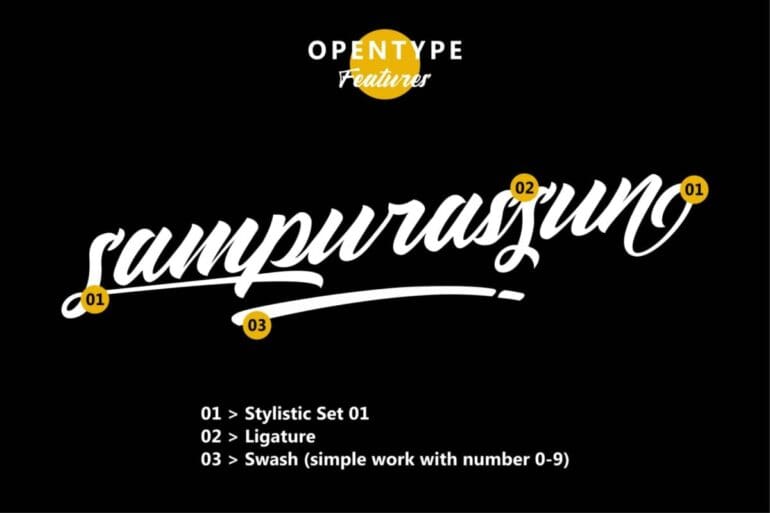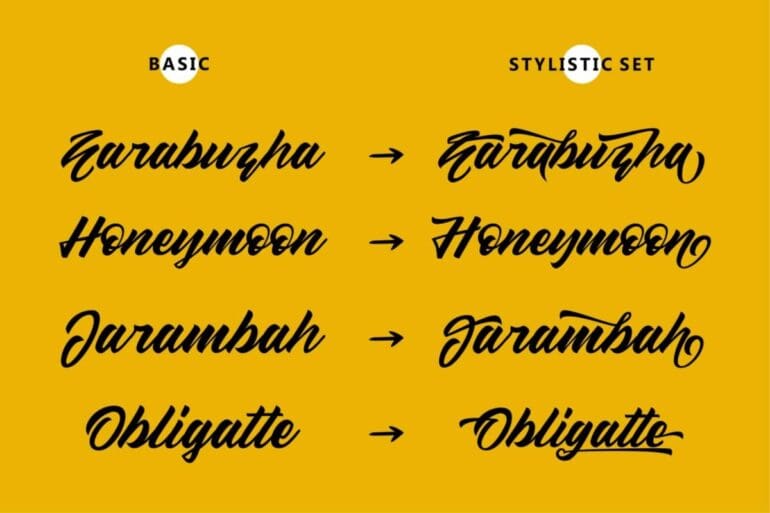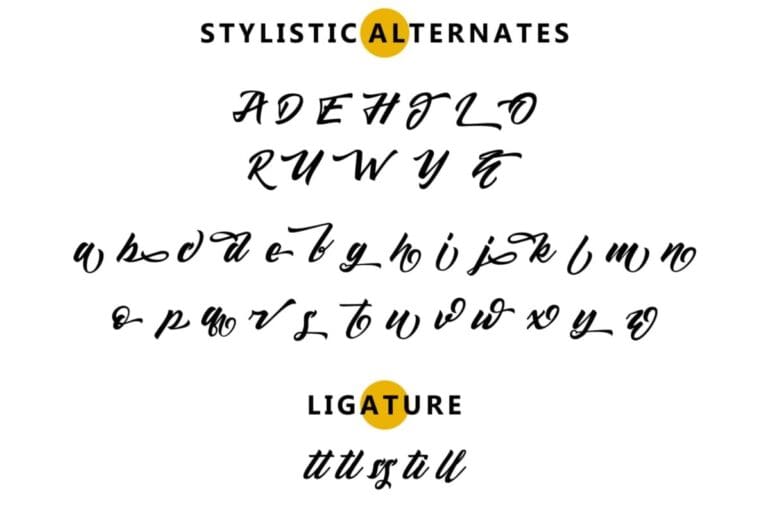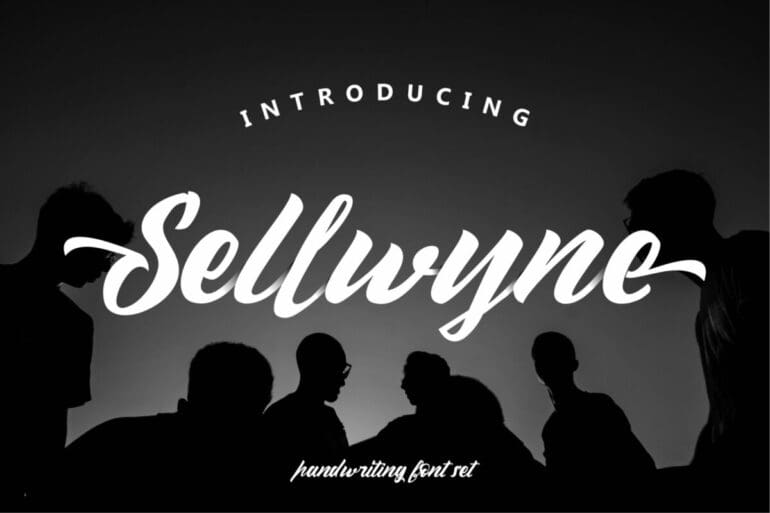
Sellwyne Script Font
Sellwyne Script Font is inspired by the name Selyn (best friend). You can create hand lettering easily using this font. This font is very suitable for design t-shirts, social media posts, and logos. designs, labels, photography, invitation, stationery, and any projects that need handwriting taste.